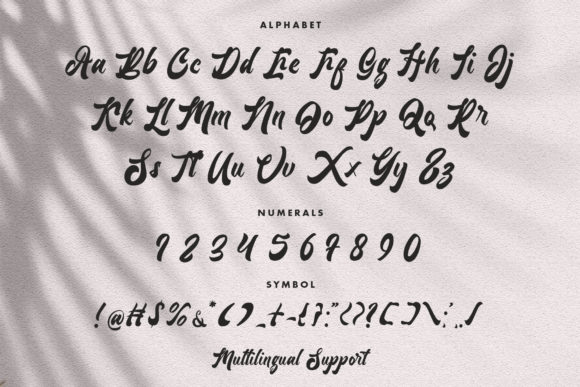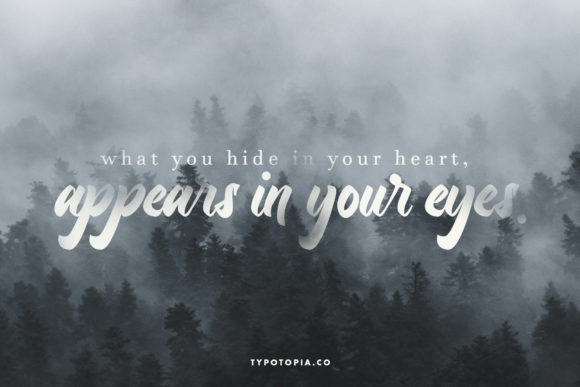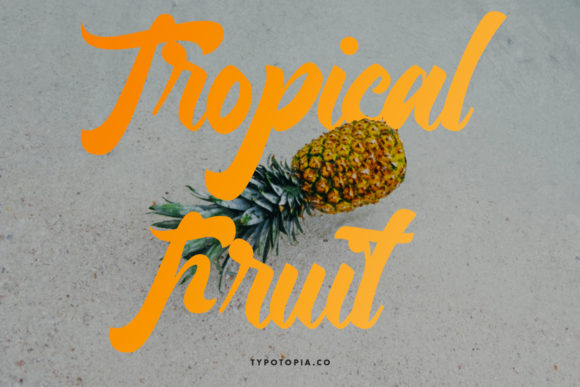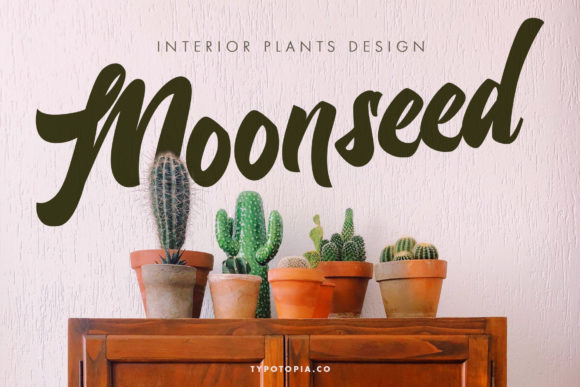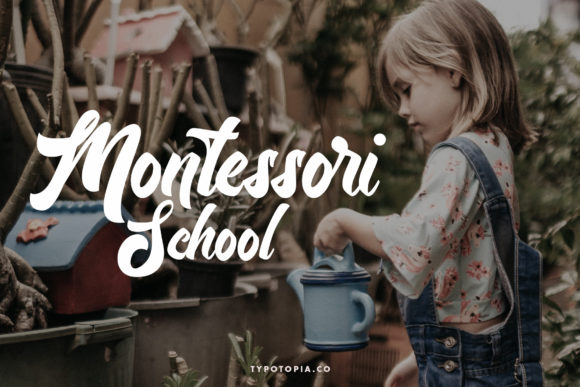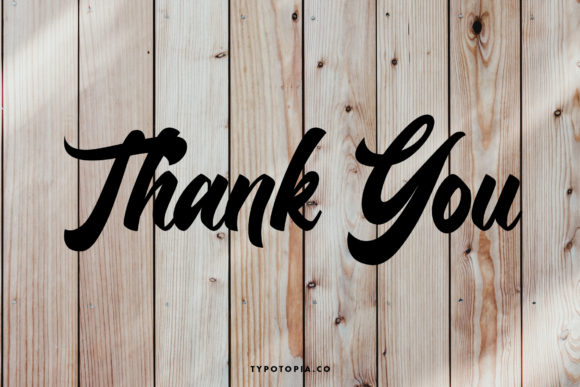
Introduction to Lantenia Font
Have you ever found yourself in the midst of a creative project, staring at a blank canvas, desperate for the perfect font to bring your vision to life? This is a moment many designers can relate to. The search for the ideal font can be a tedious one, but what if we told you that your search is over?
Meet Lantenia Font, a stunning and bold handwritten font created with the help of a paint brush. Its unique, high-quality design makes it the perfect addition to any branding, product packaging, invitation, quote, t-shirt, label, or poster. With its transparent background and versatility, Lantenia Font is a valuable resource for designers looking to add a personal touch to their work.
Key Features of Lantenia Font
- High-quality design resource with a unique, elegant style perfect for creative projects.
- Includes a wide range of characters, including Latin and Cyrillic scripts, ensuring it can be used for a variety of languages.
- Available in 5 different font weights, providing versatility for use in various design contexts.
- Perfect for use in creative projects such as logos, branding, and typography-based art, where a unique and elegant font is desired.
Honest Review: Lantenia Font
As a designer, I’m always on the lookout for high-quality design resources to enhance my creative projects. Recently, I had the opportunity to try out the Lantenia Font, and I must say, it’s been a game-changer for me.
- ✨ The font is incredibly versatile, making it perfect for a wide range of creative projects.
- ✨ The high quality of the font ensures that it looks great on both screen and print.
- ✨ The transparent background feature makes it easy to integrate the font into my designs.
- ⚠️ The font is not suitable for projects that require a lot of bold or italic text.
Overall, I’m thoroughly impressed with the Lantenia Font. Its high quality, versatility, and ease of use make it an excellent addition to any designer’s toolkit. Whether you’re working on a personal project or a commercial design, this font is definitely worth checking out.
Some common use cases for the Lantenia Font include: creating digital invitations, designing print materials, and adding text to graphics. To get the most out of the font, experiment with different font sizes, colors, and styles to create a unique and eye-catching design.
Q: Is the Lantenia Font a high-quality design resource?
Yes, the Lantenia Font is a high-quality design resource, carefully crafted to provide a unique and stylish look for your creative project. The font features a range of weights, styles, and glyphs, making it an excellent choice for designers looking for a versatile and professional font.